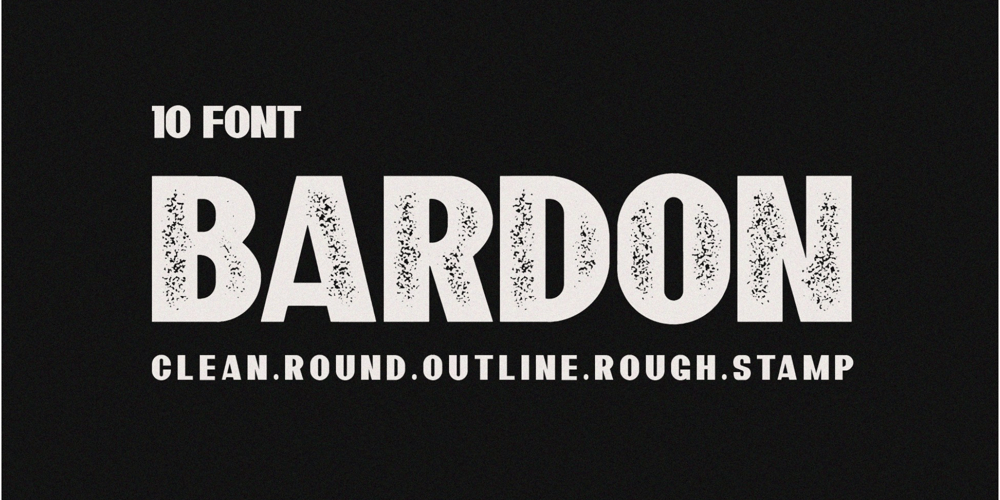
Bardon
Bardon font
Bardon Font Family was designed by Irpan Maulana and published by Sabrcreative. Bardon contains 10 styles and family package options. Immerse yourself in the allure of a bygone era with the Bardon Vintage Retro Sans Serif Font Collection. This captivating font collection boasts 10 distinct styles, each meticulously crafted to capture the essence of vintage charm while maintaining a modern edge. From refined elegance to rugged authenticity, Bardon offers a versatile range of options to infuse your designs with a touch of nostalgia.